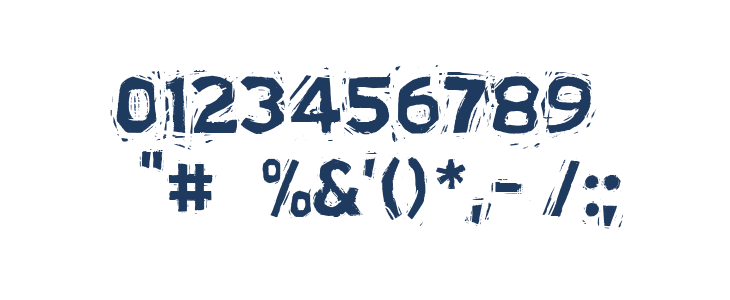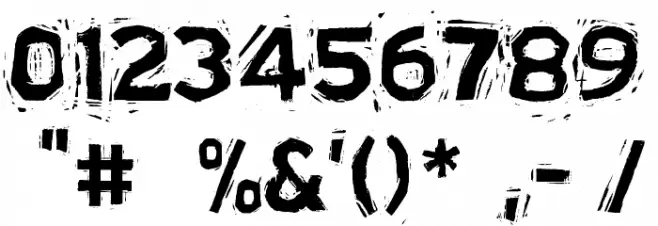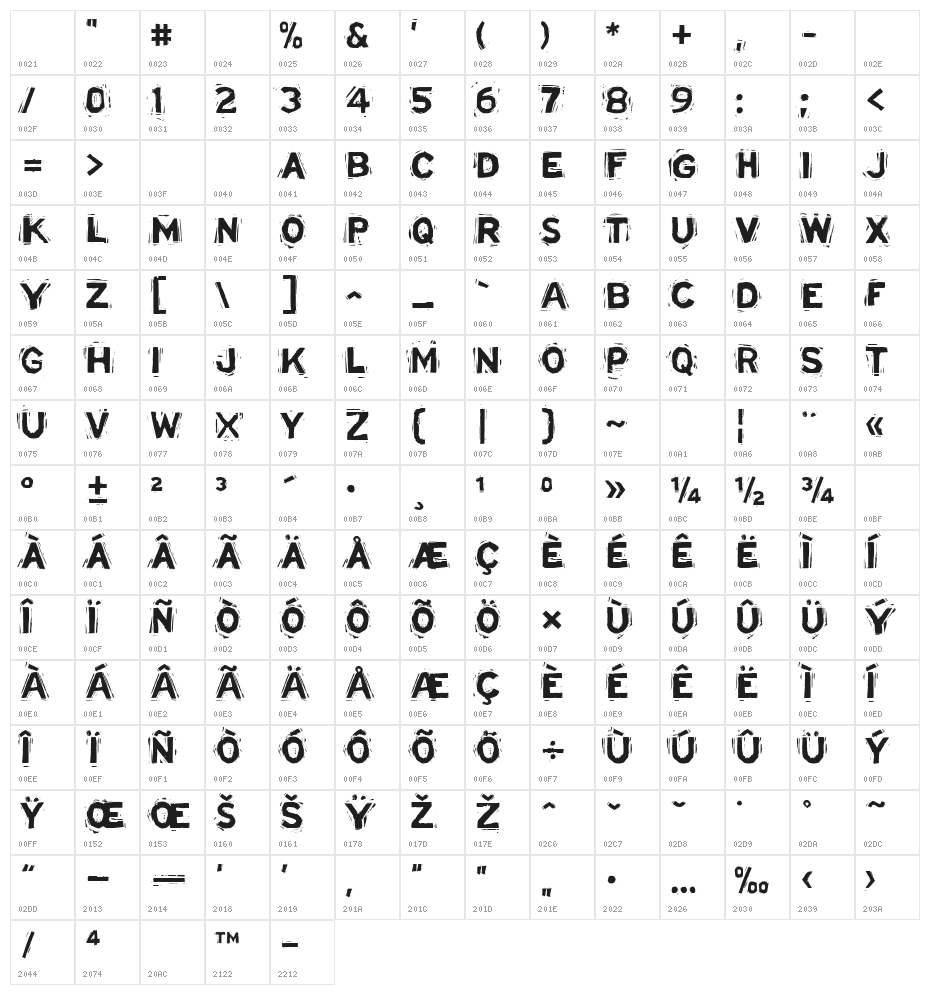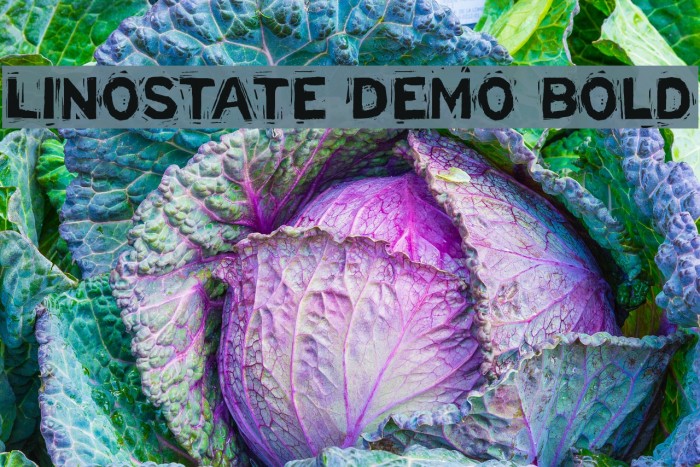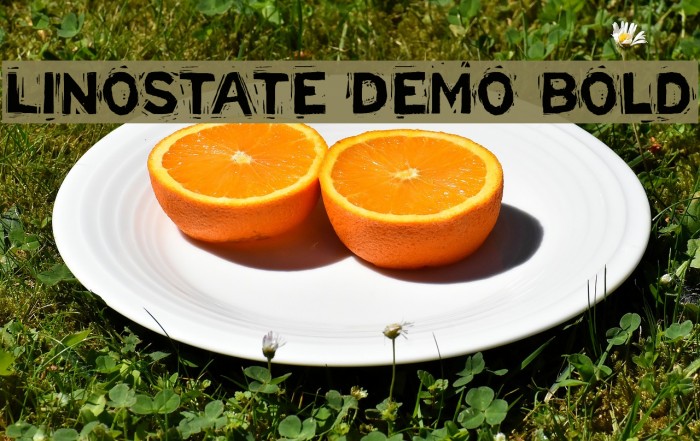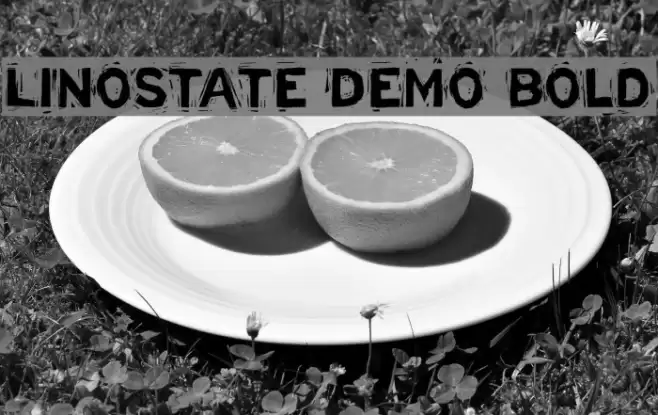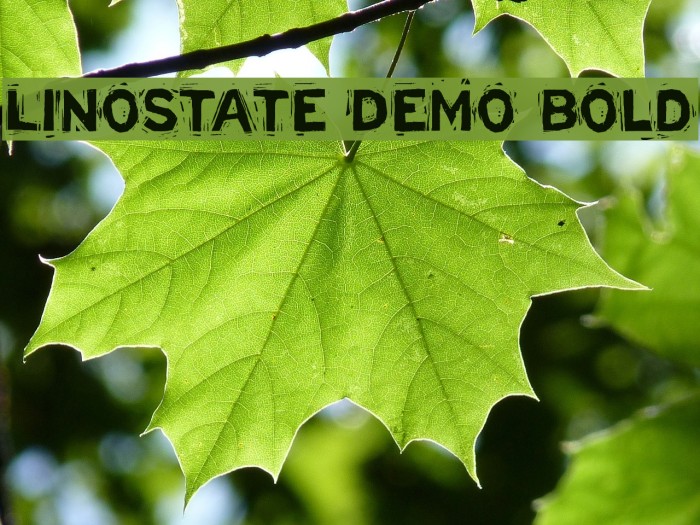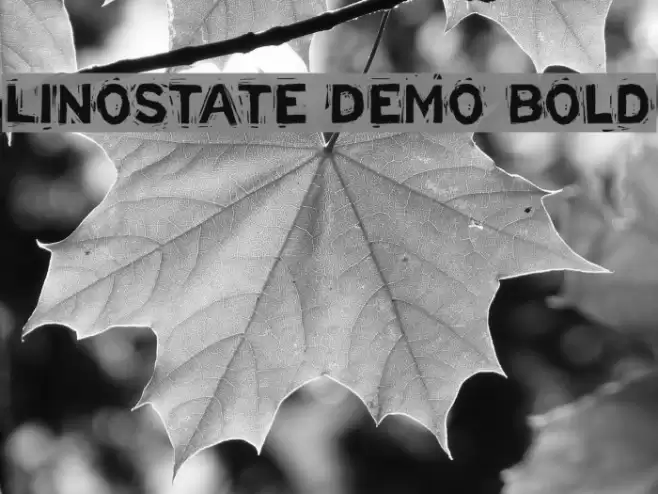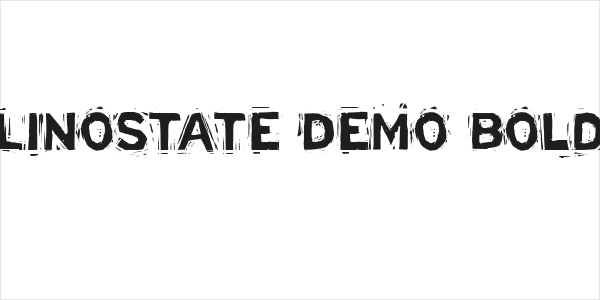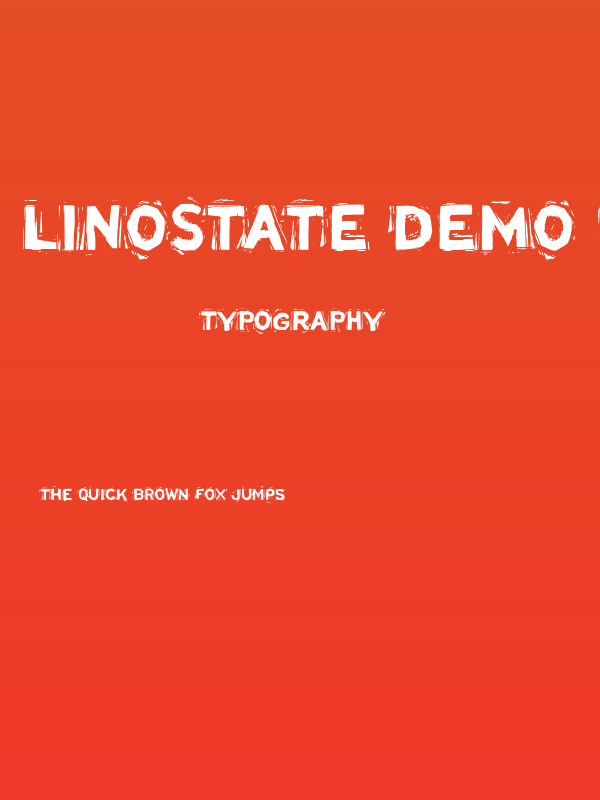
Linostate Demo Bold Font
Linostate Demo Bold Description
This font features a bold and distressed style, characterized by rough, uneven edges and a textured appearance that gives it a grunge or urban aesthetic. The letters are uppercase and have a strong, impactful presence, making them stand out prominently. The numerals and special characters follow the same distressed pattern, ensuring consistency across all glyphs. This font is ideal for designs that require a raw, edgy look, such as posters, album covers, or streetwear branding.
| Overall Style | Grunge, Urban |
| Proposed Projects | Ideal for posters, album covers, streetwear branding, and urban-themed designs. |